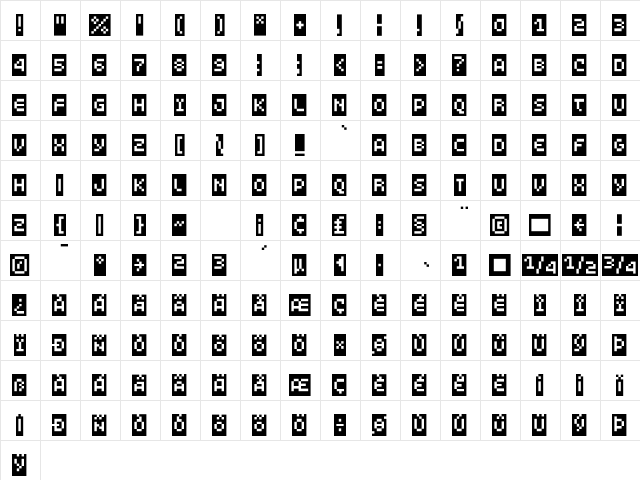
LomoWebStrip LT Std 4 Regular
| Foundry | Linotype Library GmbH |
| Designer | Fidel Peugeot |
Design Context for LomoWebStrip LT Std 4 Typeface
LomoWebStrip LT Std 4 is a composed and adaptable typeface that performs quietly and consistently across a wide range of design contexts. Its slender proportions lend an understated elegance to any composition.